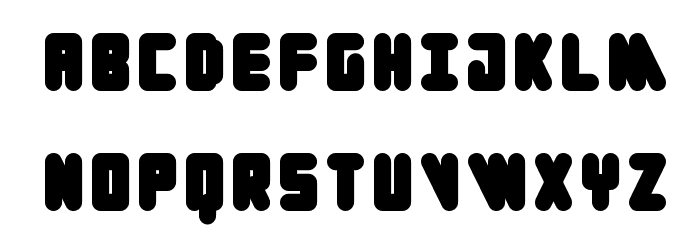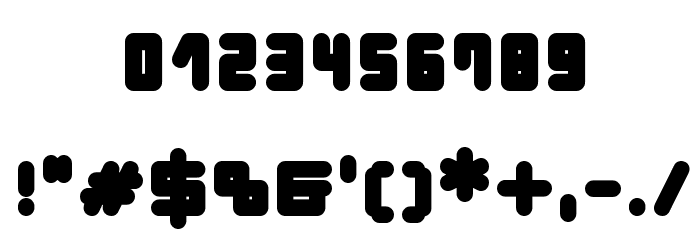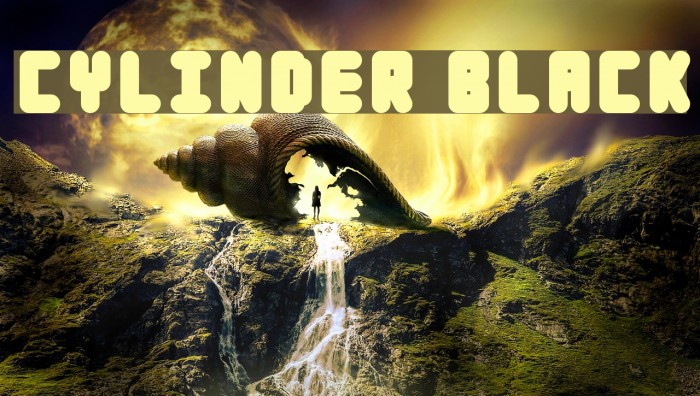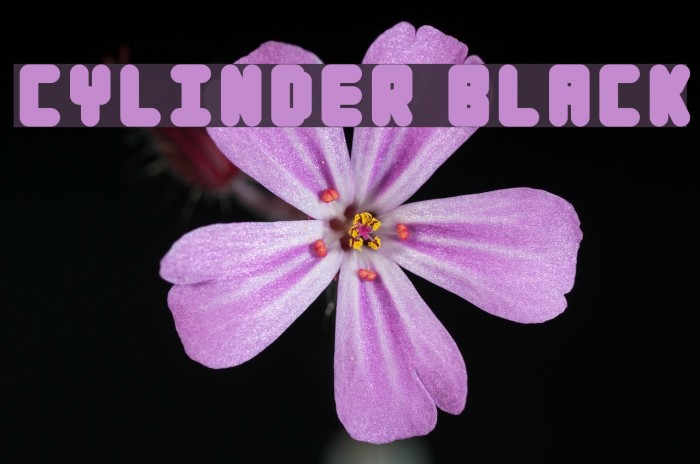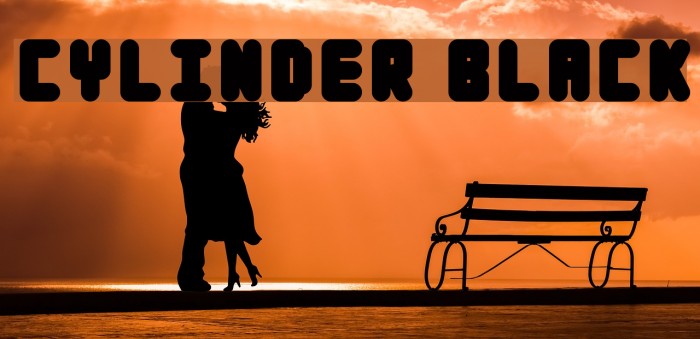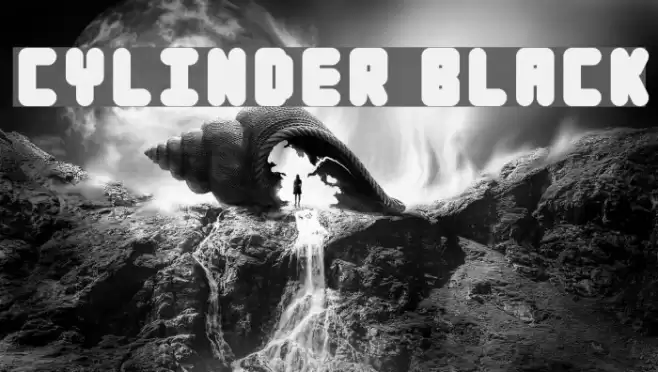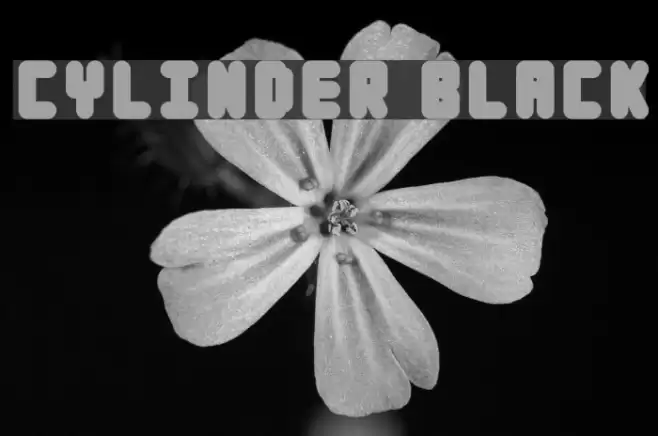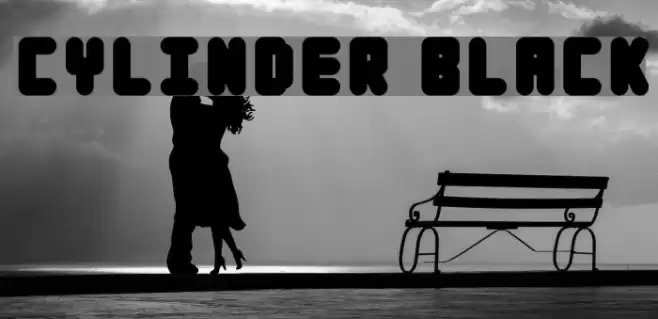
Cylinder Black Font
This bold and striking font features thick, rounded characters with a playful and modern aesthetic. The letters are designed with a consistent weight and a unique geometric style, making them stand out in any design. The uppercase and lowercase letters maintain a uniform appearance, while the numbers and special characters complement the overall look. The font's boldness and rounded edges give it a friendly and approachable feel, suitable for a variety of creative projects.
A bold, rounded font with a playful and modern geometric style.
- Proposed Projects: Ideal for branding, poster design, children's books, and playful advertising campaigns.